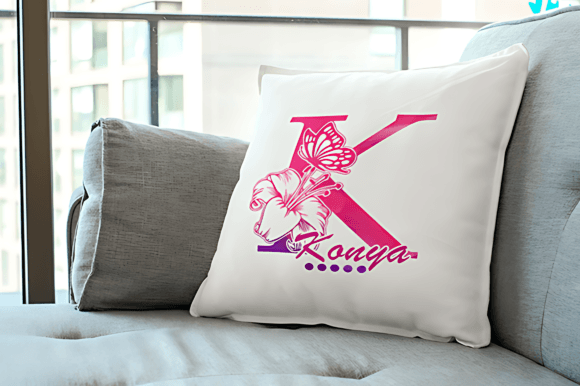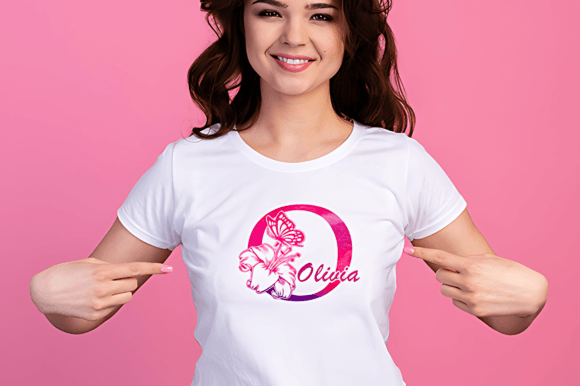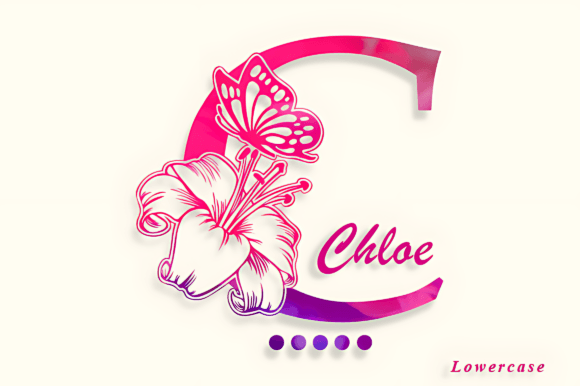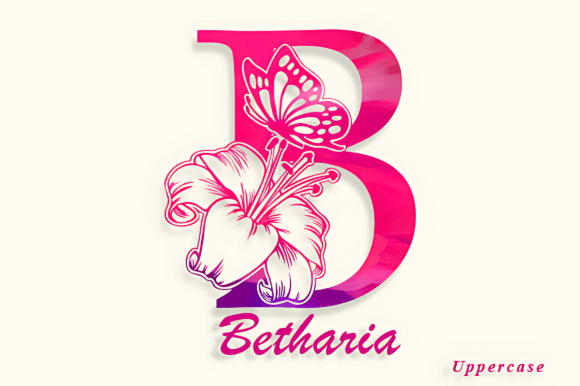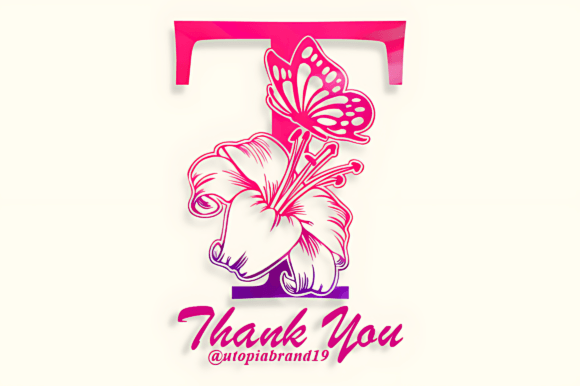
Introduction to Linda Flower Monogram Font Font
Fonts play a crucial role in design, and the Linda Flower Monogram Font font is a typeface that brings both character and versatility to any project. Whether you’re working on a branding project, a website, or a print design, the Linda Flower Monogram Font font offers a unique style that can elevate your work.
Immerse yourself in the enchanting world of Linda Flower Monogram, an elegant typeface that effortlessly intertwines sophistication and charm.
This meticulously crafted font blooms with a unique character, elevated further by ornate flourishes Linda Flower Monogram is the ideal brush stroke to paint your love story on wedding invitations, add a distinctive class to your digital stationery, or create engaging social media posts that are hard to miss.
Key Features of Linda Flower Monogram Font Font
Why Choose Linda Flower Monogram Font Font?
The Linda Flower Monogram Font font is more than just a typeface – it’s a design tool that helps you communicate your message with style and clarity. Its unique character set and versatile design make it suitable for a wide range of applications, from elegant invitations to bold headlines.
With its carefully crafted letterforms and balanced proportions, the Linda Flower Monogram Font font ensures readability and visual appeal across all mediums.
What makes Linda Flower Monogram Font font special?
The Linda Flower Monogram Font font stands out with its unique design, exceptional readability, and versatility across various design applications.